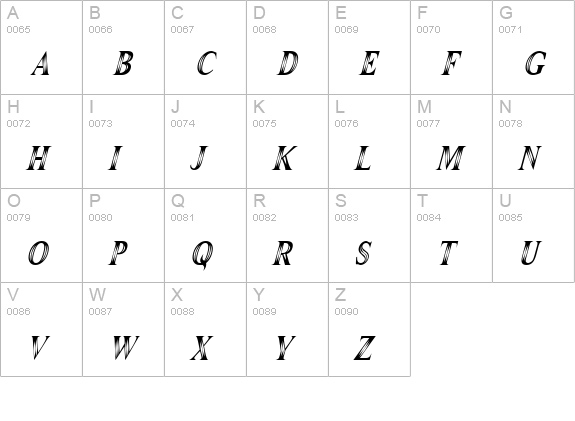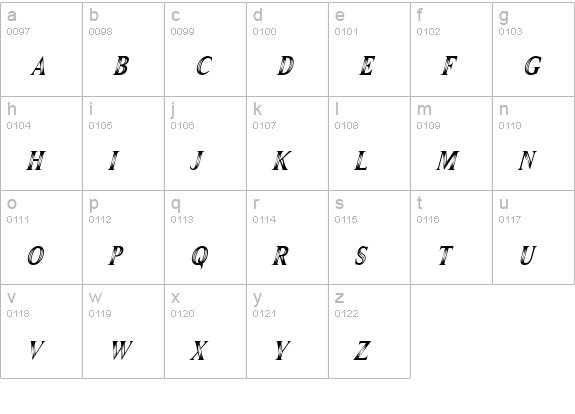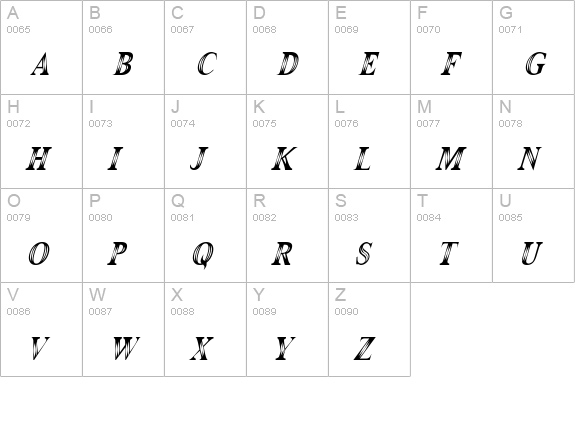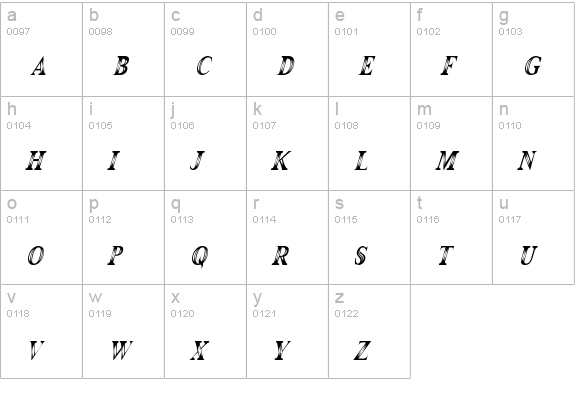
Maranallo High Italic Font Details
Maranallo High Italic is a distinctive, italic variant in the Maranallo typeface family \xE2\x80\x94 well suited to design and typography projects.
Maranallo High Italic font is a stunning and sophisticated typeface that exudes elegance and modernity. Its sleek and slender letterforms are expertly crafted, making it perfect for any design project that requires a touch of sophistication and style. This font is the epitome of class, with its italicized form adding a sense of dynamism and movement. Each character is meticulously designed, showcasing the perfect balance between thick and thin strokes, resulting in a harmonious and visually pleasing aesthetic. Maranallo High Italic font is versatile and adaptable, suitable for a wide range of applications, from branding and logo design to editorial layouts and web design. Its timeless appeal ensures that it will remain relevant and impactful for years to come. One of the best features of Maranallo High Italic font is that it is free for personal and commercial use. It can be freely downloaded at FontsMarket.com, a trusted source for high-quality and diverse typefaces. This allows designers and creatives to utilize this exquisite font without any limitations, making it a valuable asset to have in their font library. In conclusion, Maranallo High Italic font is a captivating and versatile typeface that effortlessly combines elegance and modernity. Its sleek and slender letterforms, along with its italicized form, make it a perfect choice for adding a touch of sophistication to any design project. With its availability as a free download on FontsMarket.com, designers have the opportunity to access this stunning font and unleash their creativity without any constraints.